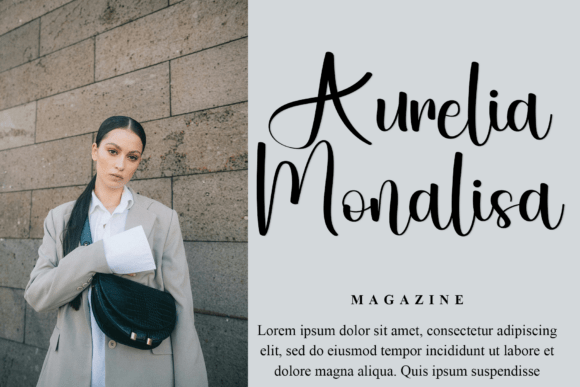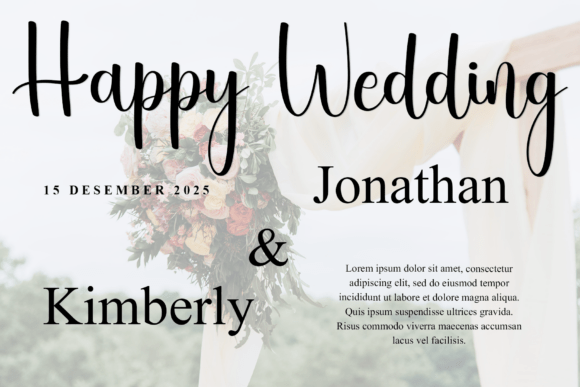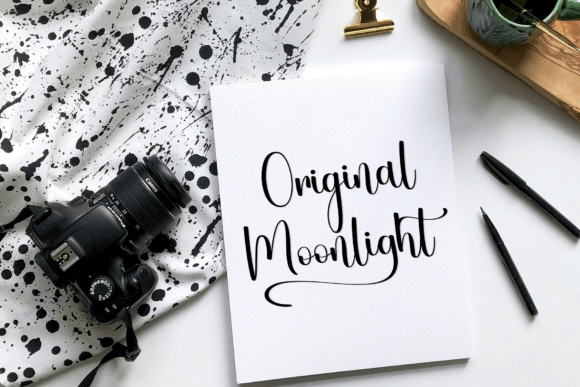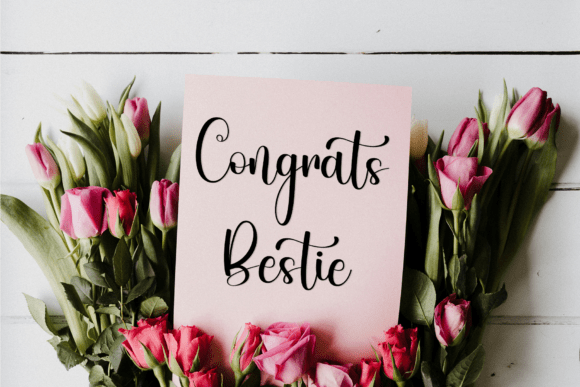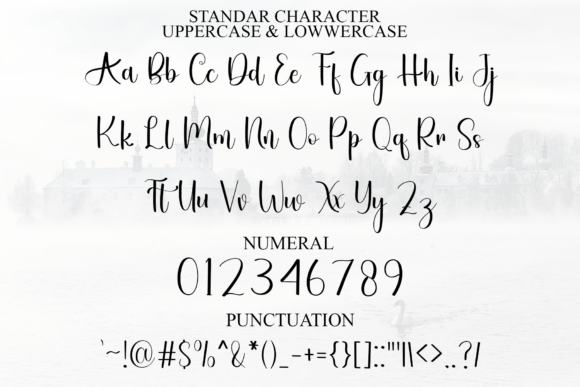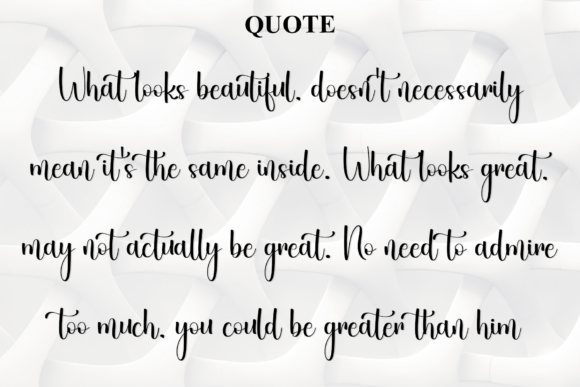
The Birth of a Masterpiece: Discovering the Creative Writing Font
Remember that moment when a spark of creativity ignited, and the words started flowing effortlessly onto the page? The world of writing is full of such magical moments, and it’s exactly these experiences that the Creative Writing Font aims to capture and enhance.
| 📌 Product Name | Creative Writing Font |
| 👤 Author | FreshTypeINK |
Designed with a soft, unique touch, this font is perfect for designers looking to add a touch of personality to their projects. Its distinctive strokes give it a special character, making it meaningful and versatile for future use. Whether you’re working on a design project, crafting a story, or creating a piece of art, the Creative Writing Font is an ideal choice.
Creative Writing Font Key Features
- Font Family: Playfair Display – A luxurious, elegant script font ideal for creative writing and publishing.
- Unique Characteristic: Swashes and Alternate Characters – Enhances the font’s aesthetic appeal and creativity.
- Font Weight: Light, Regular, Bold, Black – Offers flexibility for various design and writing styles.
Designer Review: Creative Writing Font
Overall, I think the Creative Writing Font is a decent addition to any writer’s toolkit. There are some things that work well, but also some limitations that should be considered.
- The font’s cursive style is pleasing to the eye and helps to create a sense of flow in long passages of writing.
- The font is highly legible, even at small sizes, which is a must for writers who need to read and edit their work closely.
- The font’s character set is comprehensive, covering a wide range of languages and special characters.
- The font’s cursive style can be a bit too ornate for some readers, which may make it difficult to read in certain contexts.
- The font lacks a bold weight, which can make it hard to distinguish headings and titles.
- The font is not optimized for digital use, which can result in a blurry or pixelated appearance on screens.
Overall, I think the Creative Writing Font is a solid choice for writers who value a traditional, cursive style. However, it’s not without its limitations, and users should be aware of these before making a decision.
- Use the font’s unique features, such as ligatures and swashes, to add a touch of elegance to your design.
- Pairing it with elegant colors and backgrounds to create a sophisticated look.
- Using the font’s unique features, such as ligatures and swashes, to add a touch of elegance to your design.
- Experimenting with different font sizes and styles to create visual interest.
Creative Writing Font is perfect for:
- Book covers and author bios.
Comparison to Creative Writing Font: Georgia has a similar classic feel, but it’s more formal and traditional. Creative Writing Font has a more relaxed, handwritten feel, while Georgia is more structured and refined.